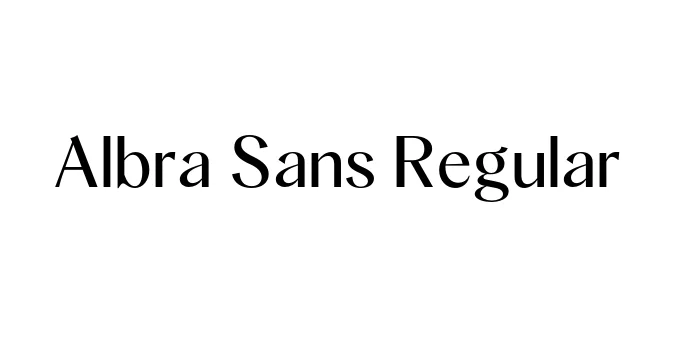
Albra Sans Regular
Designed by BumbumType (Valerio Dell’Edera)
Albra Sans Regular is a sophisticated extension of the original Albra collection, meticulously crafted to bridge the gap between high-fashion editorial aesthetics and modern digital functionality. It emphasizes a refined balance of stroke weights and geometric precision, offering a timeless appeal that works across both print and digital mediums.
The typeface is renowned for its legibility and unique character shapes that avoid the sterility often found in modern sans-serifs. By blending contemporary flair with classic proportions, Albra Sans Regular has become a staple for designers looking to convey luxury, clarity, and professional elegance in high-end projects.
Albra Sans Regular Best Uses
Ideal for luxury brand identities and corporate logos requiring a premium feel.
Perfect for high-fashion magazine layouts, subheaders, and body copy.
Optimized for clean, readable digital interfaces and high-impact hero sections.
Great for promotional materials that need to look sophisticated and trustworthy.